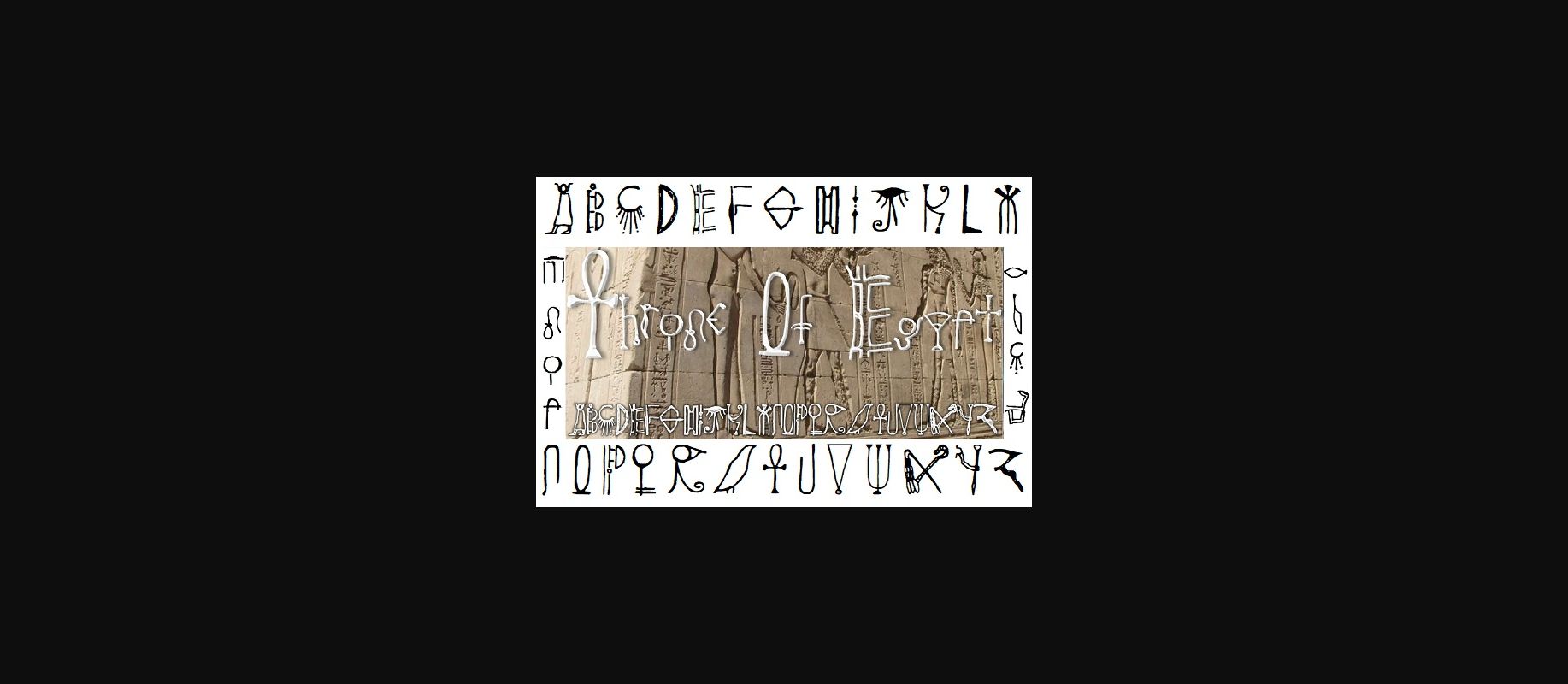
About Throne of Egypt Font
Throne Of Egypt was inspired by Ancient Egyptian Hieroglyphics and will add distinct look to any project that needs a touch of Egyptian culture.